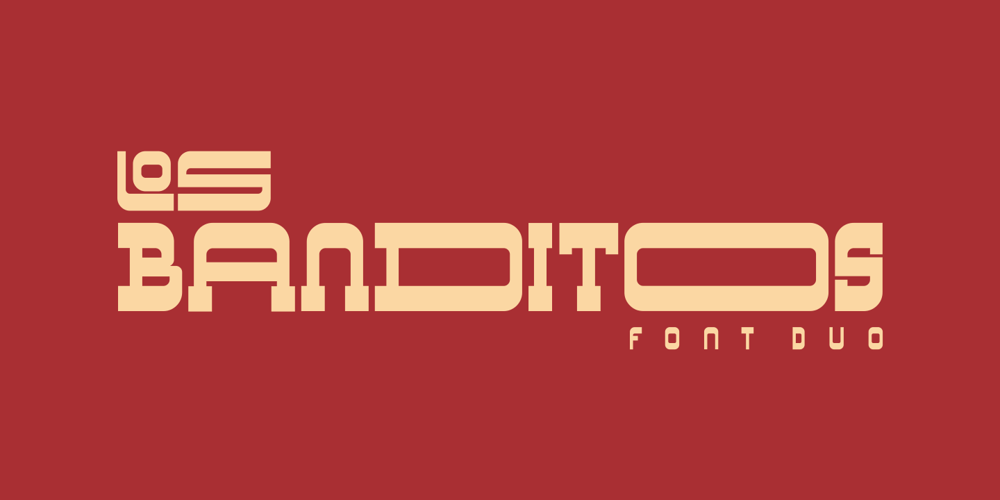
Los Banditos
Los Banditos font
Los Banditos Font Family was designed by Dicky Safaat Fuadi and published by Your type. Los Banditos contains 2 styles and family package options. The classical vintage font Los Banditos comes in a serif and sans serif form with a lot of of stylistic alternates and ligatures that will give a unique, classic, amd retro look on your design projects. Use it as a Display font on a poster, logo, menu, clothing brand, magazine, movie, website and much more.